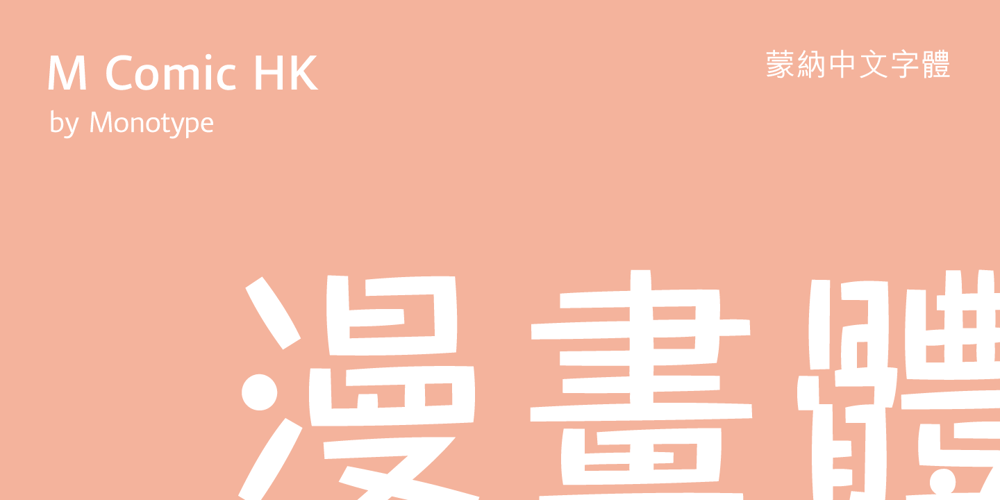
M Comic HK Font Family was designed by Monotype HK Design and published by Monotype HK. M Comic HK contains 1 styles and family package options. M Comic is a humanistic script design characterised by its modern, stiff, free and blocky construction. M Comic incorporates free and irregular characteristics of M Cute. Crossbars (橫) and stems (豎) are straight and slightly slanted. Entry and finial points of strokes are squarish and parallel without flare. Contrast of stroke is low, together with its bold stems (豎), making it suitable for large display text to catch attention. The result is a loosely coupled line of text of free, stiff and blocky glyphs. It is best for casual and humanistic display, illustrations, set upright, non-condensed.